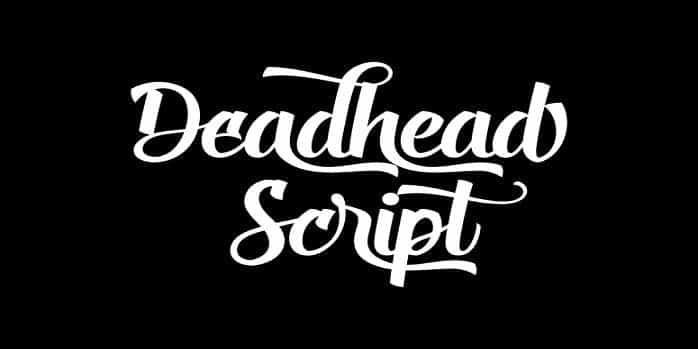
Deadhead Script is an amusing font that is derived from brush writing style. It can be created with great detailing that can add some extra value to your design. Most suitable for almost any design themes, from vintage, modern, gothic, dangdut pantura, and many more.